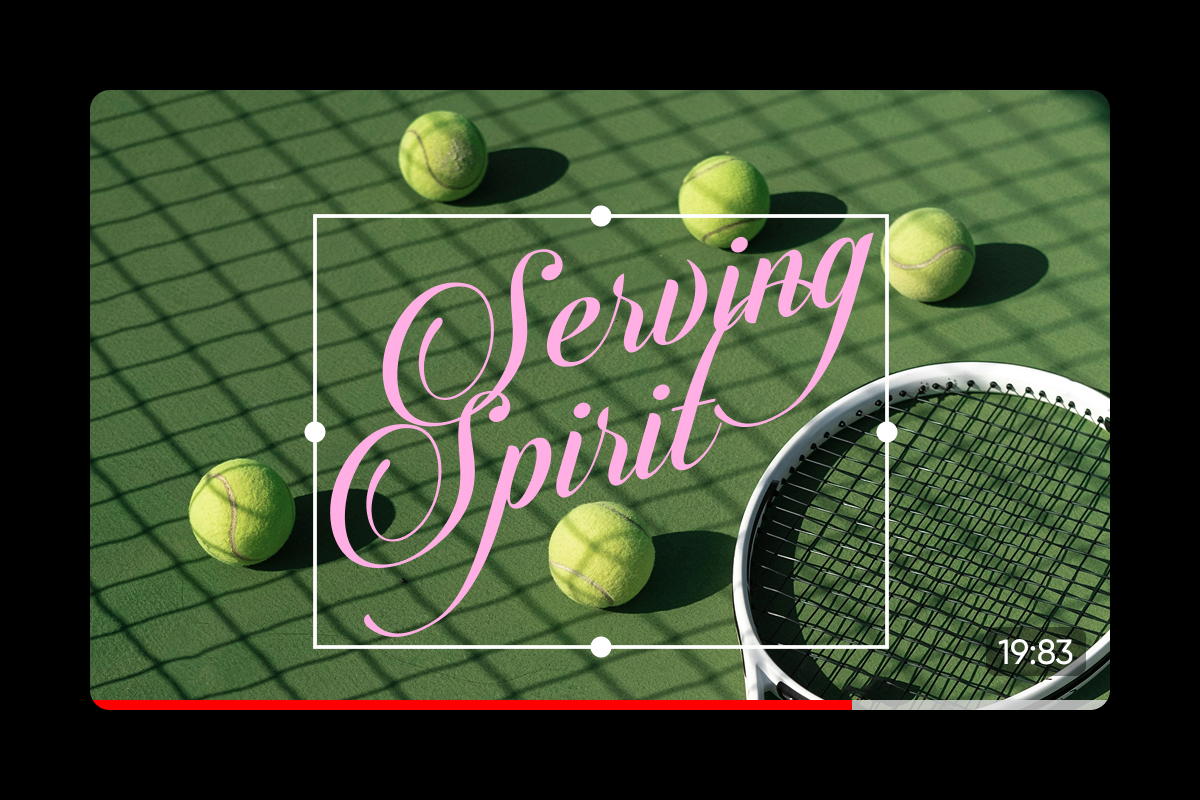
Your font choice can shape how your YouTube video is perceived before anyone even hits play. YouTube thumbnail fonts aren’t just decorative, they help define your channel’s personality, build consistency and most importantly, drive clicks.
If you’re sharing tutorials, gaming streams, vlogs or reviews, cool thumbnail fonts can help your video stand out in a fast-moving feed. In this guide, we’ll explore how to choose the best fonts for thumbnails, which styles perform well and where you can find creator-approved options that enhance your visuals.
Why fonts matter for YouTube thumbnails
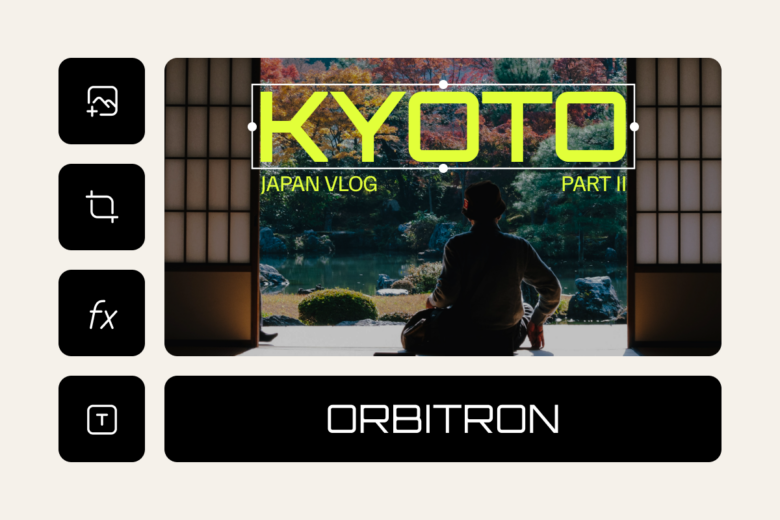
Fonts communicate mood, tone and energy at a glance. A sharp, well-placed title in a bold font draws the eye and can be the deciding factor in whether someone watches your video.
Effective YouTube thumbnail fonts:
- Make your content easier to recognize
- Improve visibility across devices
- Reinforce your creative niche (tech, beauty, entertainment, etc.)
- Create hierarchy and focus within your thumbnail layout
Your thumbnail works like a digital poster. The right typeface adds structure, clarity and personality, helping you stand out on crowded homepages.
How to choose the right fonts for your YouTube thumbnails
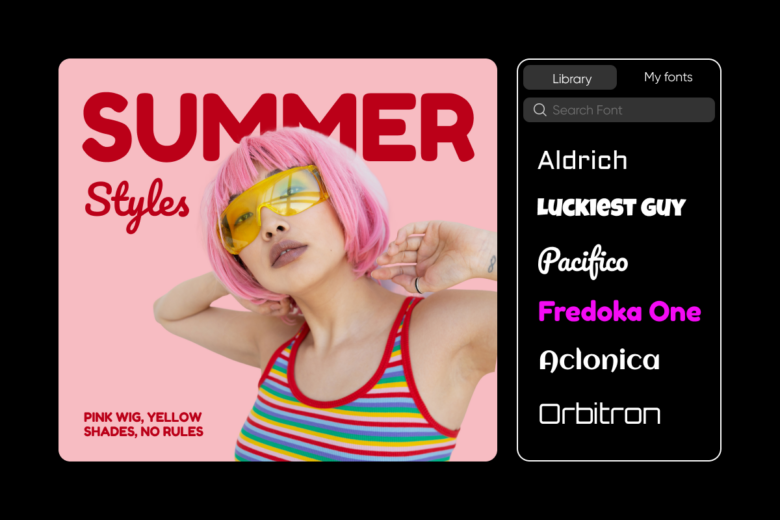
When choosing fonts, readability is your top priority, but that doesn’t mean sacrificing creativity. Here’s what to keep in mind:
- Readability comes first: Avoid thin lines or ornate details. Choose fonts that stay legible at small sizes.
- Match your content style: Bold, edgy fonts suit gaming and reaction content. Softer, handwritten fonts may work better for lifestyle or travel.
- Limit font mixing: One or two fonts are all you need. A primary display font plus a subtle secondary font adds balance.
- Caps with intention: Uppercase text creates emphasis but can feel intense; use it thoughtfully.
Best fonts for YouTube thumbnails
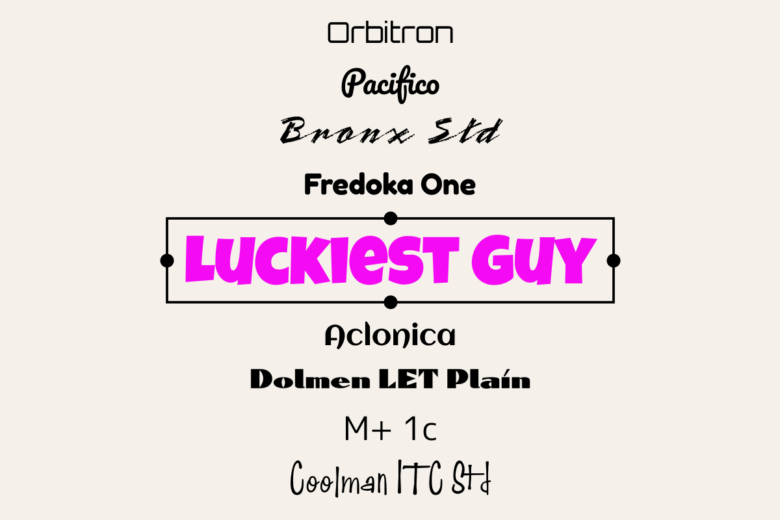
If you’re asking what font do YouTubers use for thumbnails, you’ll find there’s no one-size-fits-all answer. But many successful creators choose high-impact fonts with strong contrast and character. Here are standout options available inside the Picsart Font Library:
- M+1c Regular – Sleek and clean; great for educational and tech content
- Fredoka One – Rounded and friendly; perfect for family or vlog channels
- Orbitron – Futuristic with sharp lines; ideal for sci-fi or gaming thumbnails
- Pacifico – Warm and casual; fits beauty, travel, or lifestyle themes
- Coolman ITC Std – Trendy and upbeat; a great match for Gen Z-style content
- Monterey BT – Smooth script with polish; best for personal or narrative videos
- Bronx Std – Heavyweight and bold; excellent for sports or action-focused content
- Dolmen LET Plain – Strong and structured; great for bold statements
- Luckiest Guy Regular – Animated and expressive; great for humor and reactions
- Aclonica Regular – Rounded and balanced; works well for approachable brands
Tips for using fonts in your thumbnails
Typography choices are most effective when paired with thoughtful design. Here are a few simple ways to make your fonts work harder:
Use color to create separation
Backgrounds, outlines and shadows can help your text stand out against busy images. Aim for high contrast.
Stick to a font style across videos
Using the same 1–2 fonts helps build visual consistency, so people quickly start recognizing your content.
Keep it short
Your thumbnail isn’t the place for full titles. A few powerful words can tease the video’s value without overwhelming the layout.
Preview at small sizes
Always zoom out or test your thumbnail on mobile to confirm it’s still easy to read.
Final thoughts
The fonts you choose say as much about your content as your title or thumbnail image. Smart YouTube thumbnail fonts help you capture attention, define your brand and communicate clearly – all within a few square inches of space.
Creating beauty tutorials, gaming walk-throughs or daily vlogs? A strong typeface can give your videos that extra boost. Focus on readability, tone, consistency and test until you find what works best for your audience.